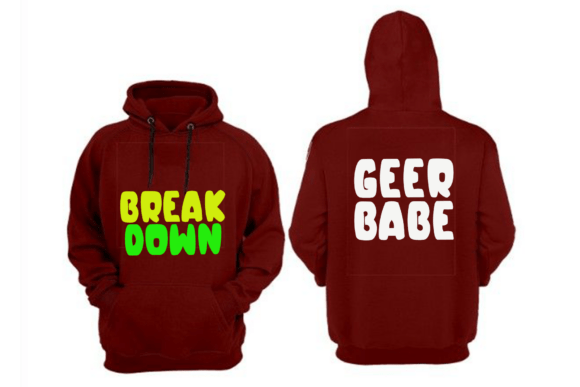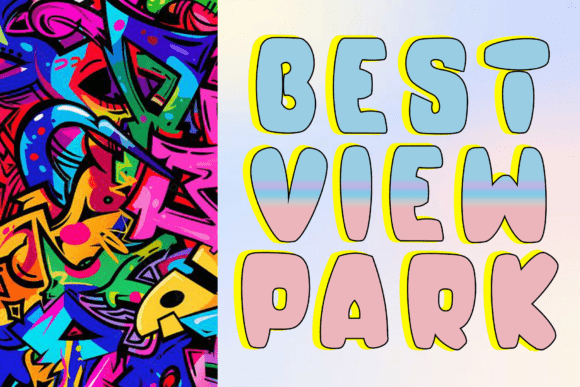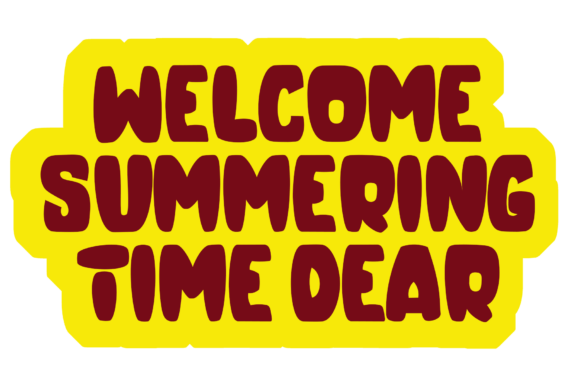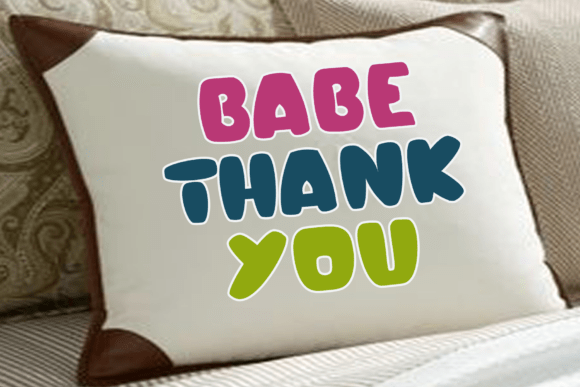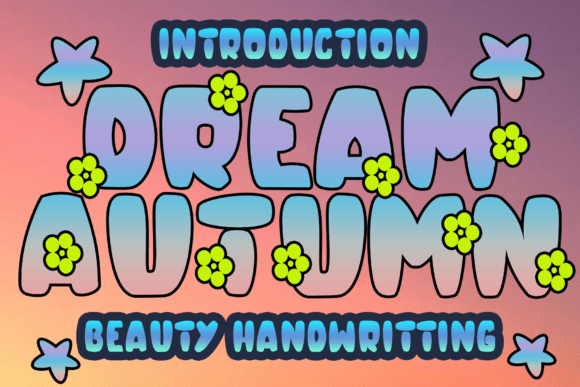
Dream Autumn Font: The Ultimate Groovy Typeface for Vibrant Designs
Are you ready to add a splash of color and charm to your designs? Look no further than the Dream Autumn Font, a retro-inspired display font that’s bursting with flower power and vibrant personality. With its chunky shapes and floral accents, this font is perfect for 70s-themed designs, kids’ projects, fun packaging, and seasonal campaigns that need a dash of whimsy and fun.
The Retro-Inspired Charm of Dream Autumn Font
Dream Autumn Font is a carefully crafted typeface that embodies the spirit of the 1970s, an era known for its love of bold colors, playful patterns, and free-spirited designs. This font takes inspiration from the iconic designs of the time, reimagining classic elements with a modern twist. The result is a unique and eye-catching font that’s sure to make your designs stand out.
Key Features of Dream Autumn Font
- Chunky Shapes: Dream Autumn Font features chunky shapes that give it a bold and playful appearance. Perfect for headlines and titles, these shapes add a fun and energetic vibe to any design.
- Floral Accents: The font’s floral accents add a touch of whimsy and charm, making it ideal for designs that require a bit of personality.
- Vibrant Personality: Dream Autumn Font exudes a vibrant personality that’s perfect for designs that need to pop.
Perfect for 70s-Themed Designs
Dream Autumn Font is a natural fit for 70s-themed designs, evoking the era’s iconic style and charm. Whether you’re creating a retro-inspired poster, a funky flyer, or a groovy website, this font is sure to transport your audience back in time. Its bold and playful appearance makes it perfect for:
- Retro-themed posters and flyers
- Groovy website headers and titles
- Fun and playful social media graphics
Kids’ Projects and Fun Packaging
Dream Autumn Font is also an excellent choice for kids’ projects and fun packaging. Its playful and whimsical design makes it perfect for:
- Kids’ book titles and illustrations
- Fun and colorful packaging for toys and games
- Children’s party invitations and decorations
Seasonal Campaigns and More
Dream Autumn Font’s vibrant personality and charming design make it an excellent choice for seasonal campaigns and more. Use it to add a pop of color and fun to:
- Seasonal promotions and advertisements
- Holiday-themed designs and decorations
- Special event branding and marketing materials
Why Choose Dream Autumn Font?
With so many fonts to choose from, why should you choose Dream Autumn Font? Here are just a few reasons:
- Unique and Eye-Catching: Dream Autumn Font is a one-of-a-kind typeface that’s sure to make your designs stand out.
- Versatile: This font can be used for a wide range of designs, from 70s-themed posters to kids’ projects and fun packaging.
Dream Autumn Font is a groovy, retro-inspired display font that’s bursting with flower power and vibrant personality. With its chunky shapes and floral accents, it’s the perfect choice for 70s-themed designs, kids’ projects, fun packaging, and seasonal campaigns that need color and charm. So why wait? Download Dream Autumn Font today and add a splash of fun and whimsy to your designs!